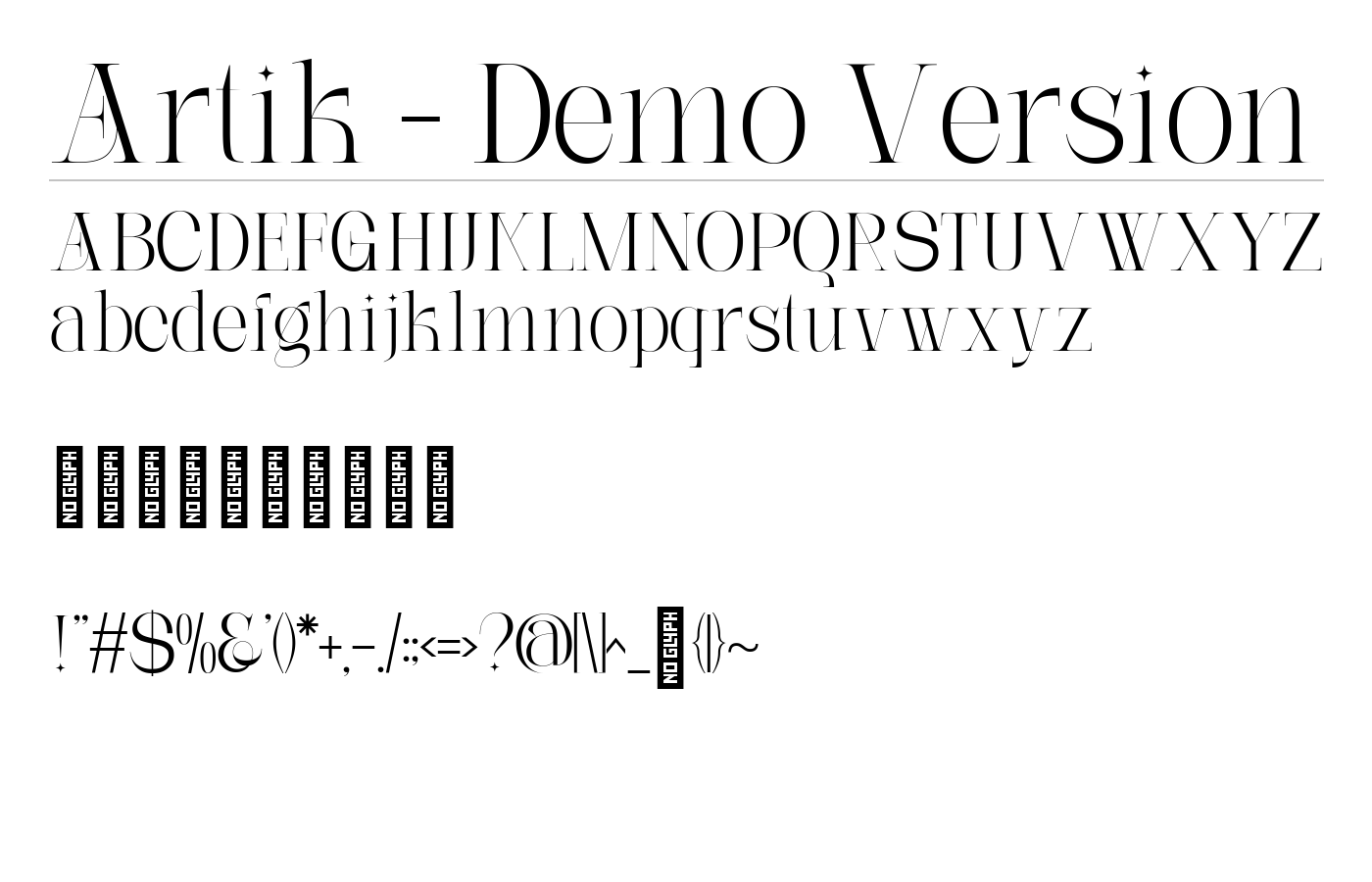
Artik is an elegant serif font featuring a high-contrast stroke style with sharp, delicate serifs that give it a refined and sophisticated look. Its tall, slender letterforms and distinctive details, like the unique tails and terminals, make it ideal for luxury branding, editorial headlines, and upscale packaging where a modern yet classic feel is desired. This font excels at conveying elegance and exclusivity while maintaining readability in large display settings.
Artik - Demo Version Font
About Artik - Demo Version Font
| Font family | Artik - Demo Version Font |
| Designer | Sigit Dwipa Raharjo |